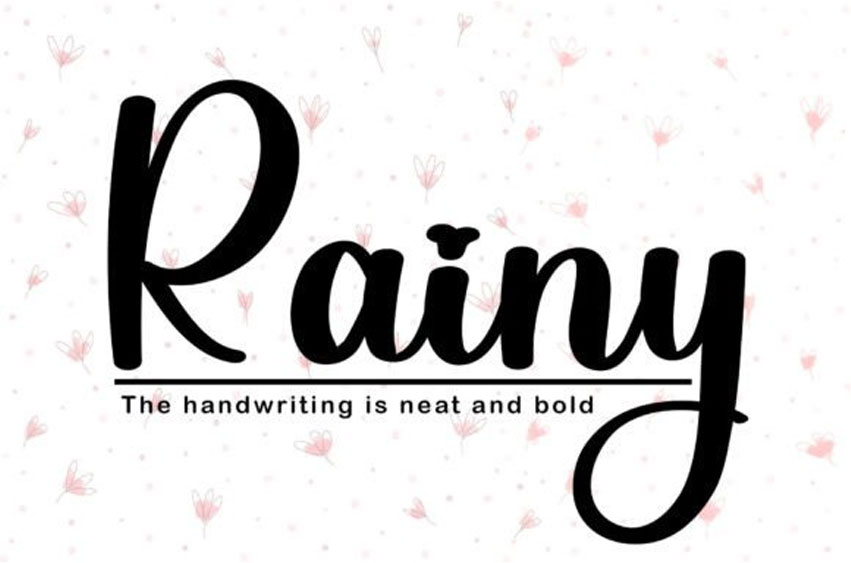
Rainy Script Font is a stylish handwritten font with a classy atmosphere and perfect shapes, inspired by timeless classic calligraphy.
Balanced and diverse, this font is designed to enhance the beauty of your project.